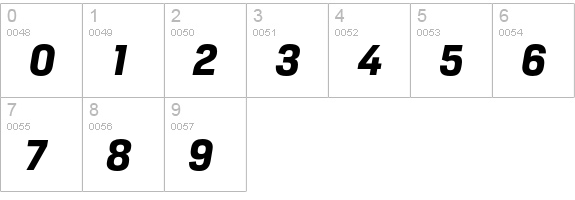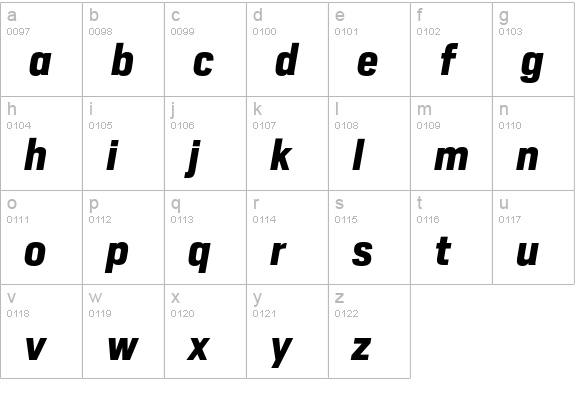
HeronSans Bold Italic is a strong, high-contrast, italic variant in the HeronSans typeface family \xE2\x80\x94 well suited to headlines, attention-grabbing titles, and strong calls-to-action.
HeronSans Bold Italic font is a striking and modern typeface that exudes confidence and sophistication. Its bold weight and elegant italic design make it perfect for creating eye-catching designs that demand attention. Whether you're designing posters, logos, or branding materials, HeronSans Bold Italic will add a touch of style and flair to your projects. What sets HeronSans Bold Italic font apart is not only its sleek and contemporary look but also the fact that it is available for free download at FontsMarket.com. This means you can easily access this high-quality font to elevate your designs without breaking the bank. Don't miss out on the opportunity to enhance your creative projects with HeronSans Bold Italic font – download it for free today and see the difference it can make in your work.